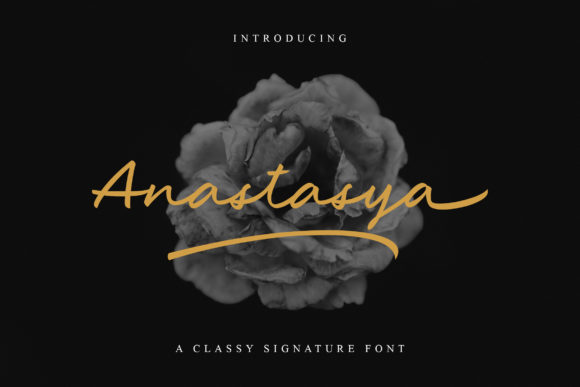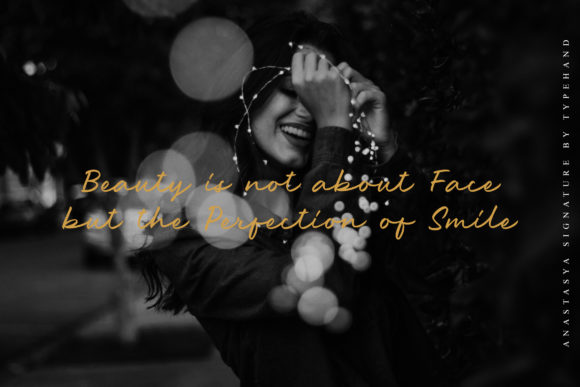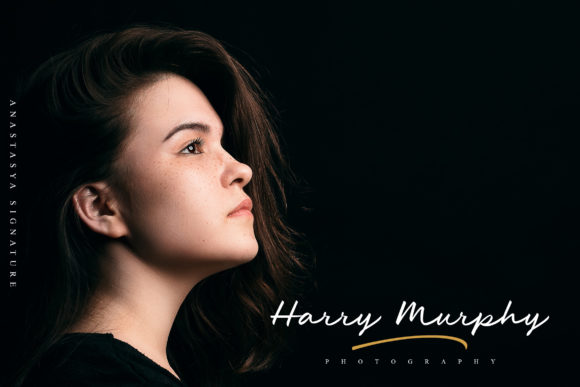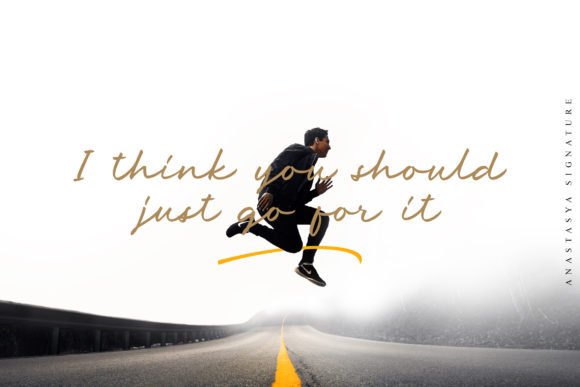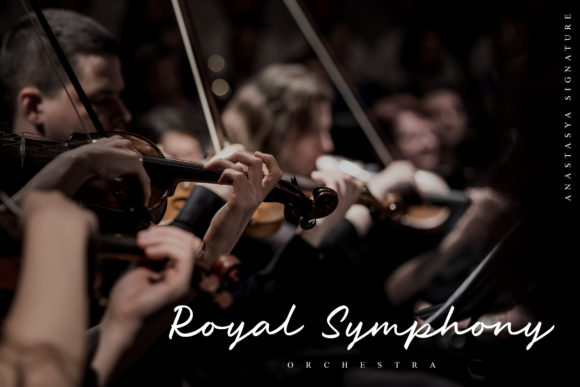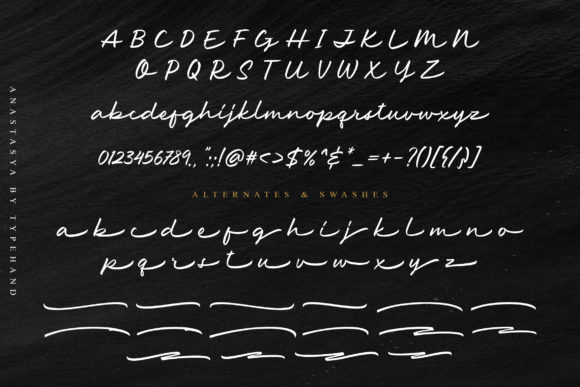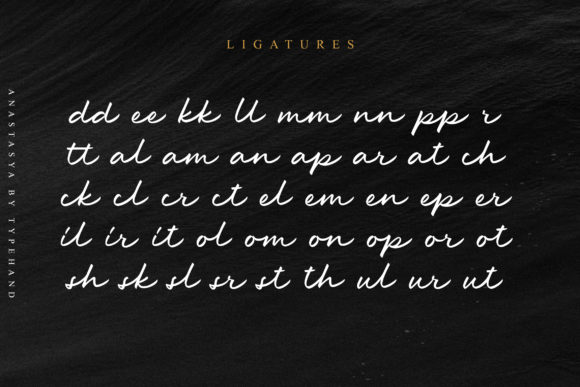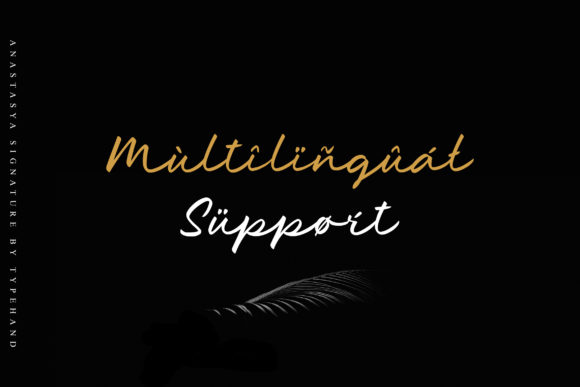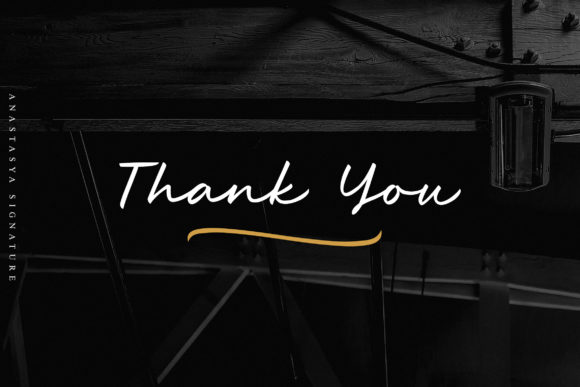
HomeScript FontsAnastasya Font Script Fonts Anastasya Font FacebookXPinterestWhatsApp Anastasya Font Poster 2 Anastasya Font Poster 3 Anastasya Font Poster 4 Anastasya Font Poster 5 Anastasya Font Poster 6 Anastasya Font Poster 7 Anastasya Font Poster 8 Anastasya Font Poster 9 About Anastasya Font Anastasya is a stunning calligraphy font with a dynamic vibe. Use it to turn any craft into a standout! DOWNLOAD NOW People also explored Nectarines Font Ashira Font Berdiate Font Darmia Font Jimolost Font Screwball Comedy JNL Font Manuscript Felice Font Mellanie Font Electricity Generation Font 383 0 TagsAnastasya Font Previous articleRosttel FontNext articleSunflower Font LEAVE A REPLY Cancel reply Comment: Please enter your comment! Name:* Please enter your name here Email:* You have entered an incorrect email address! Please enter your email address here Website: Save my name, email, and website in this browser for the next time I comment. Personal Use Free Whoa Personal Use Free Read more about this font Sefiya Personal Use Free Read more about this font Boston Traffic Personal Use Free Read more about this font Rasiday Personal Use Free Read more about this font BLOG Exploring Font Trends Shaping Communication in the Digital Era Fonts, like all design elements, are subject to trends. They play a crucial role in communicating a brand's personality,... The 10 Best Handwriting Fonts to Add Personality to Your Designs Top 7 Google Fonts Alternatives for Faster and Privacy-Friendly Web Design (2025) Transform Your Website: Elevate Your Typography with 7 Best Web Font Generators